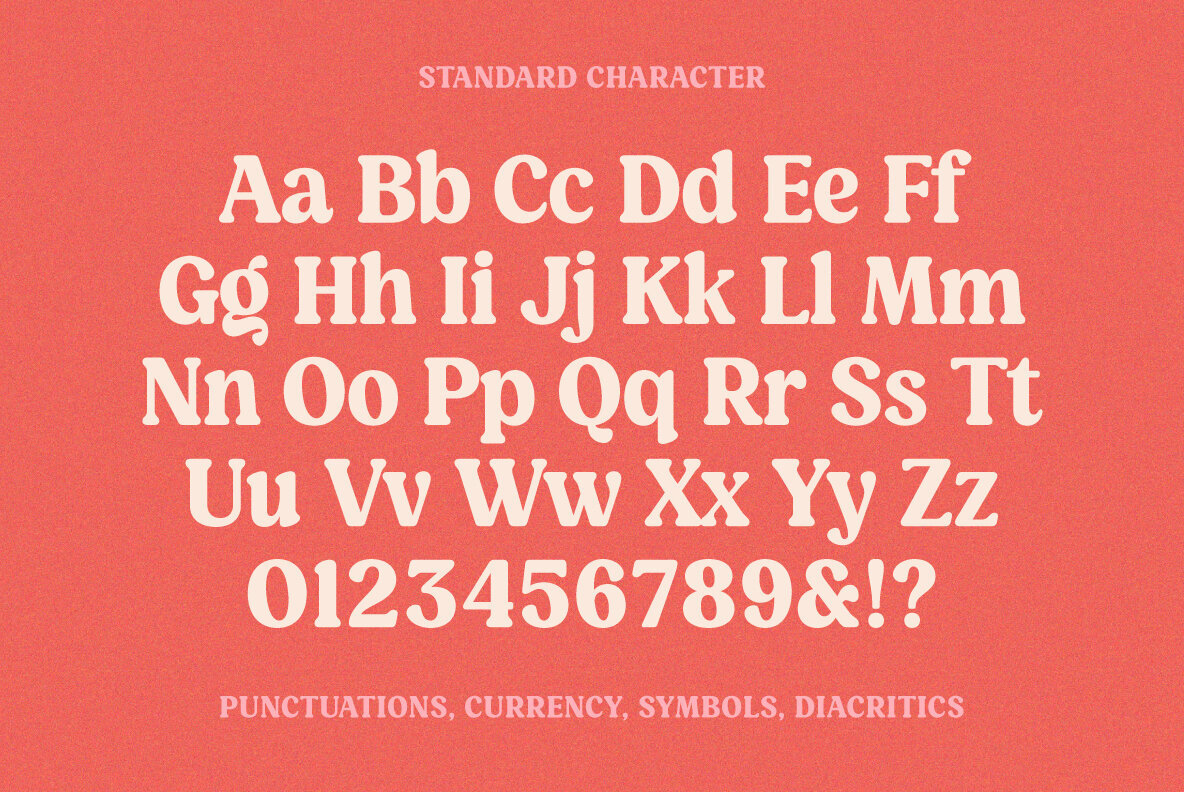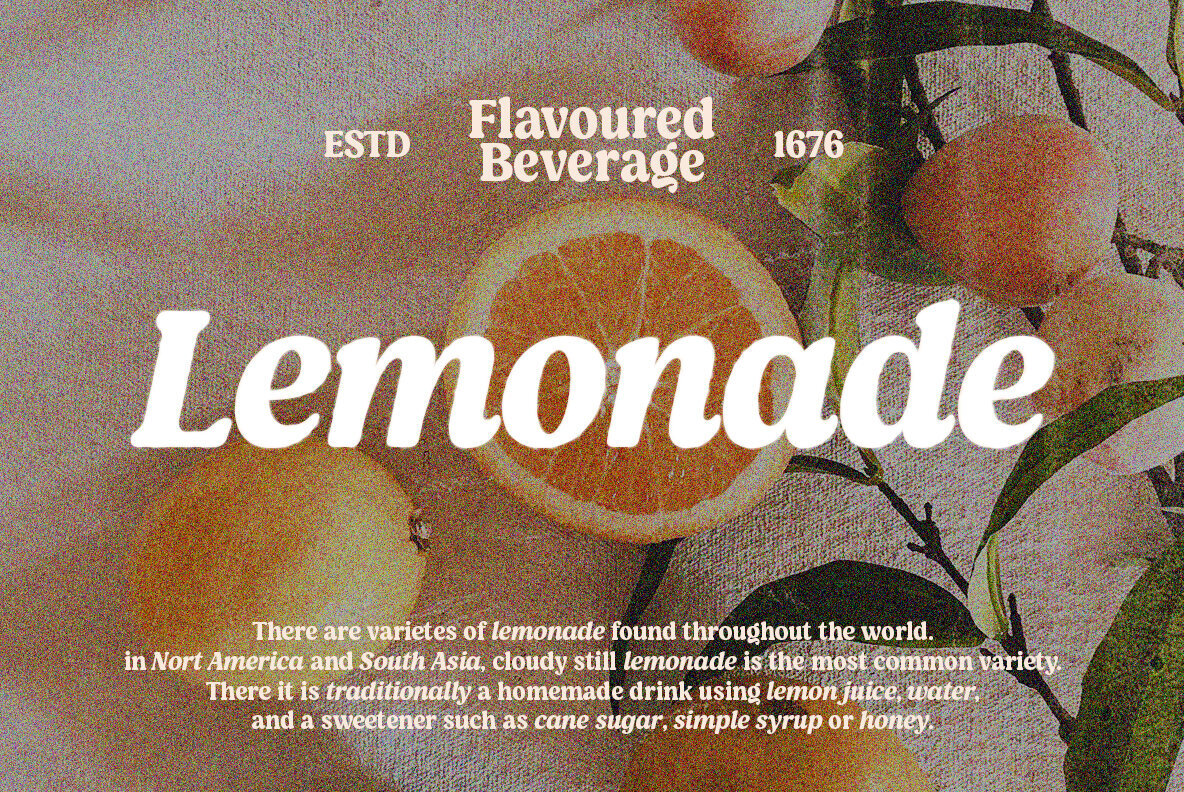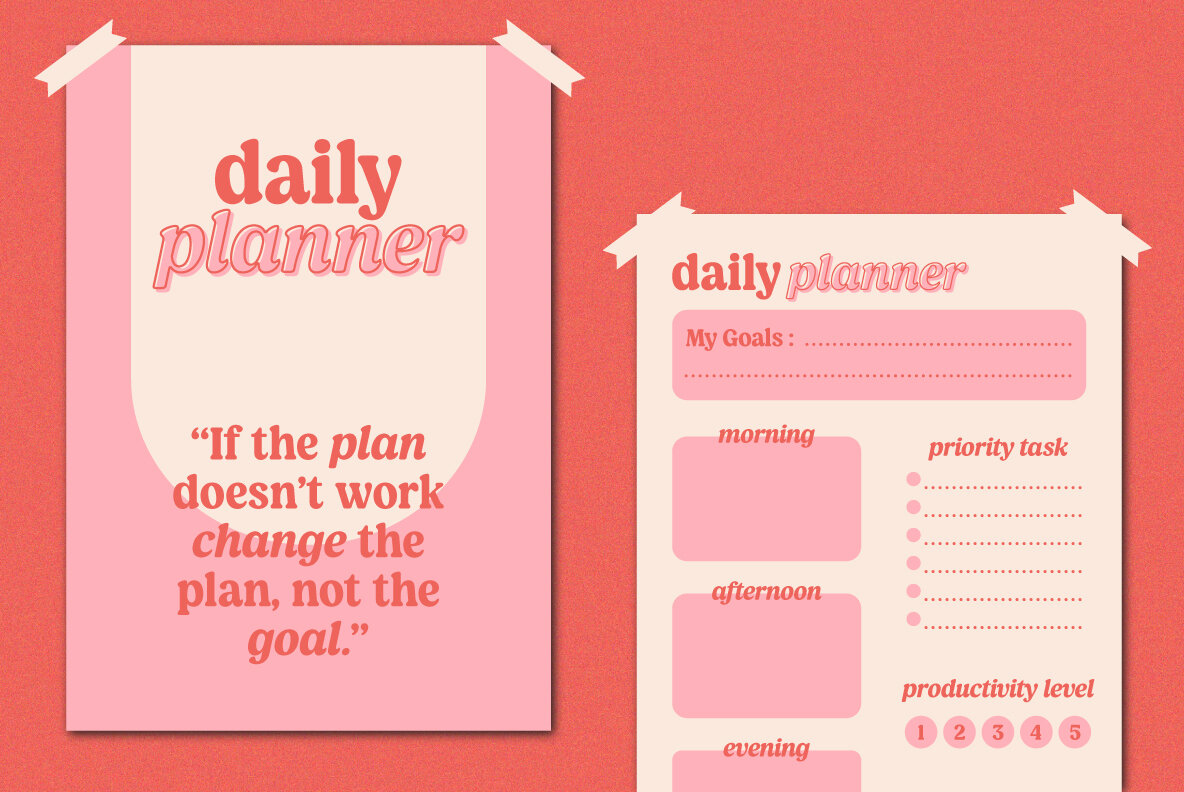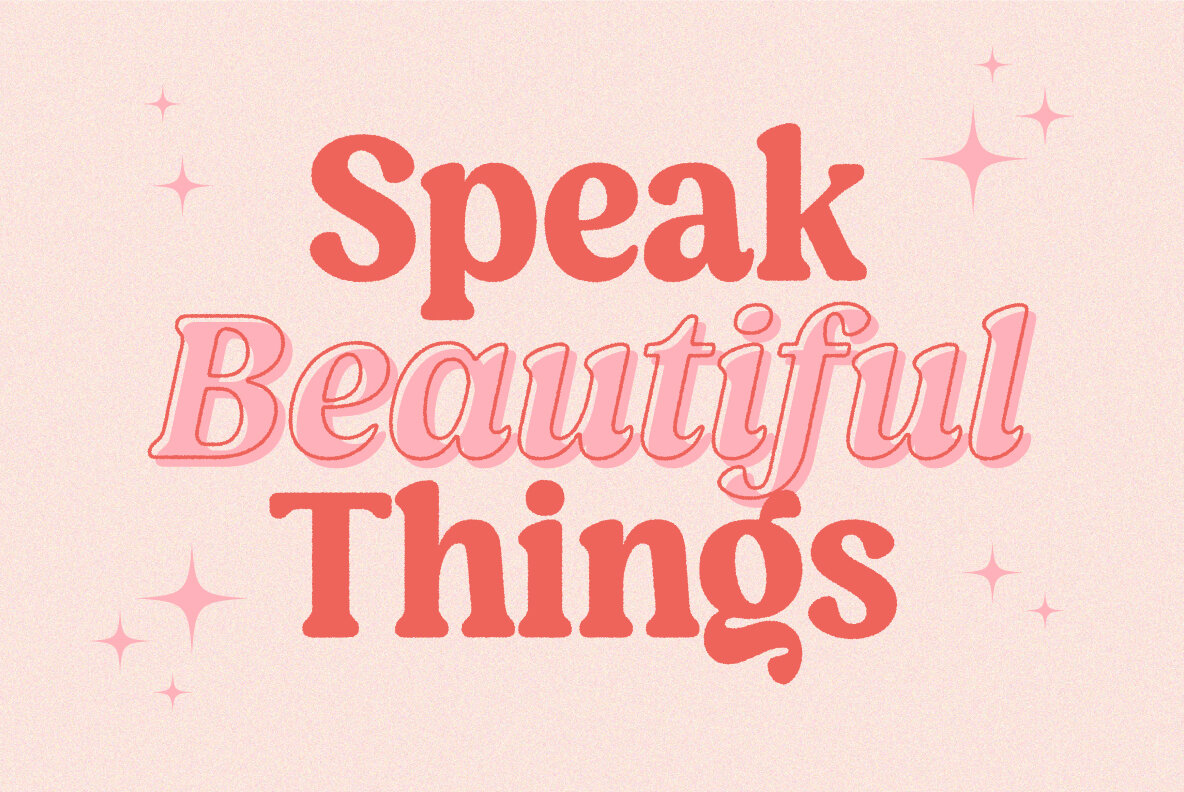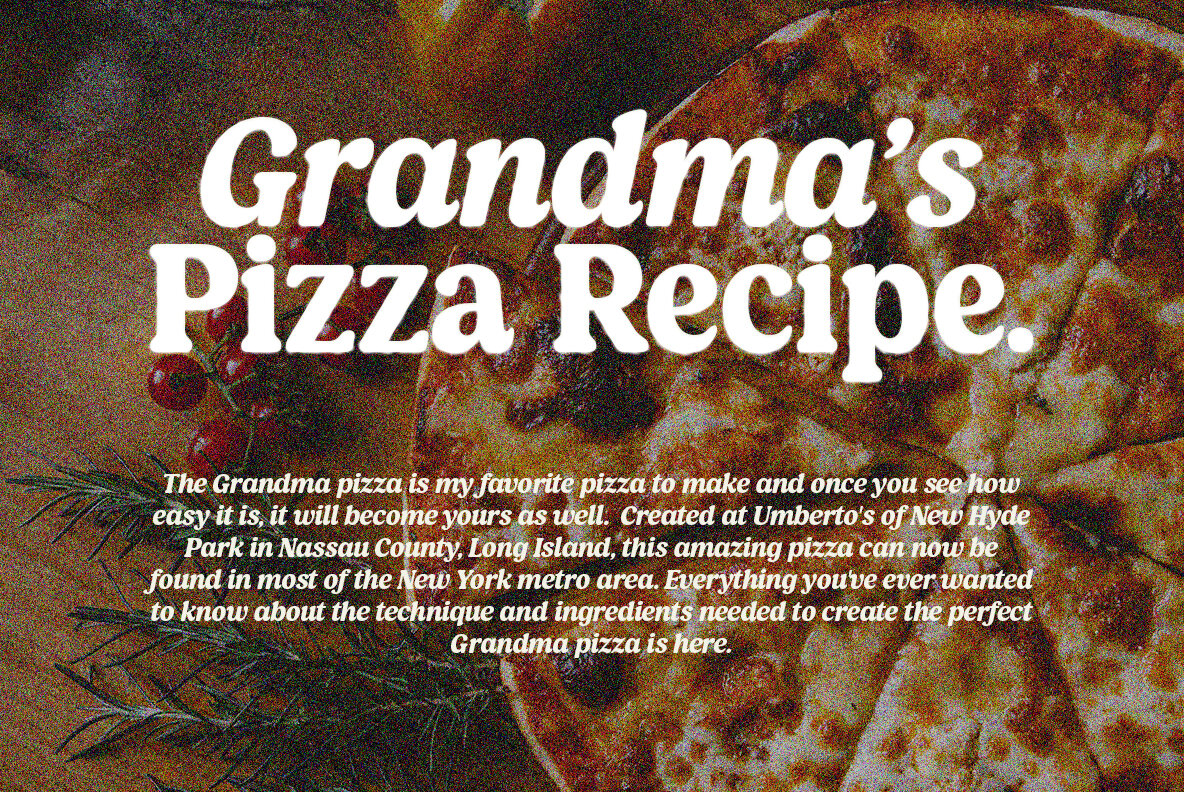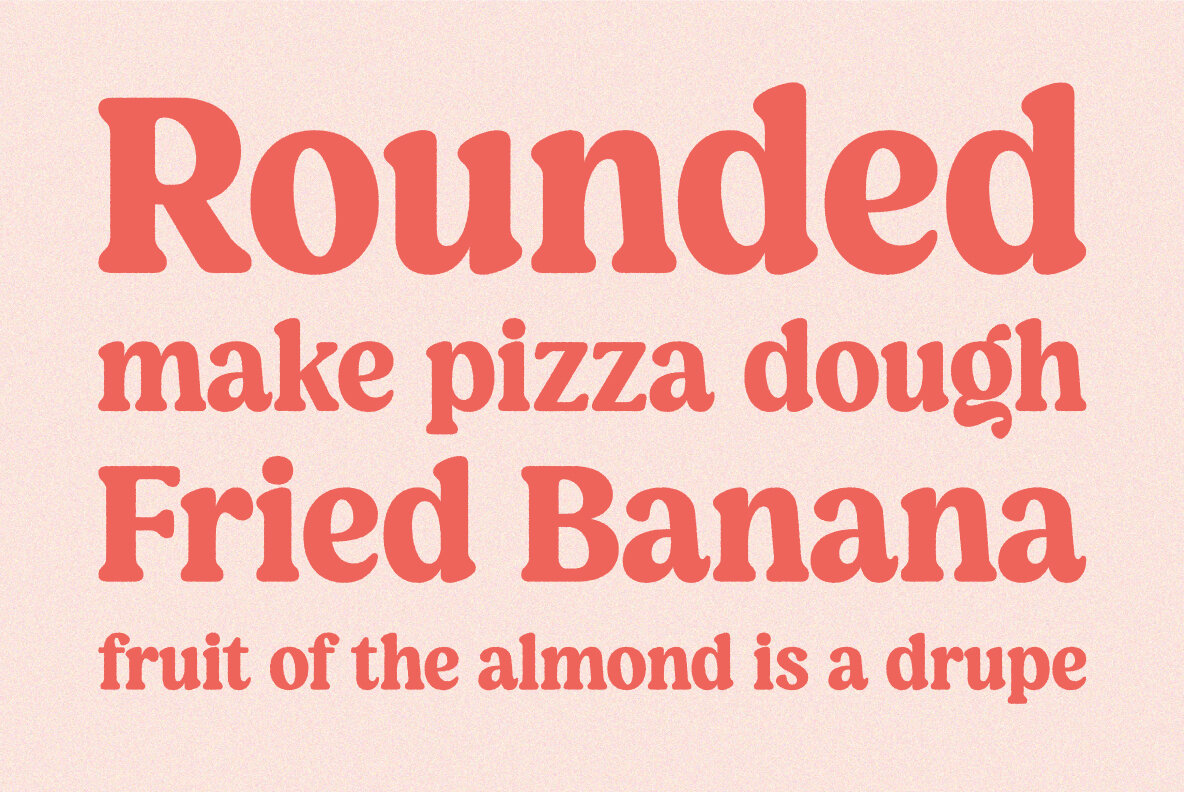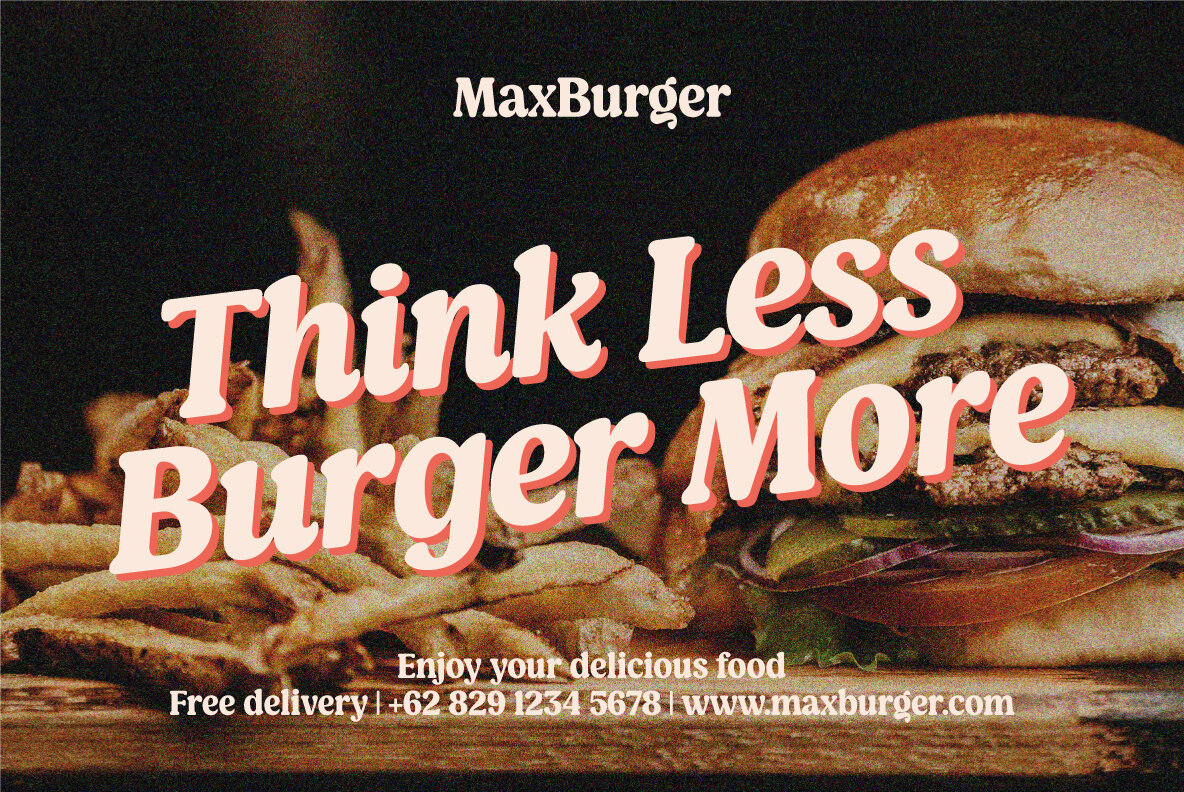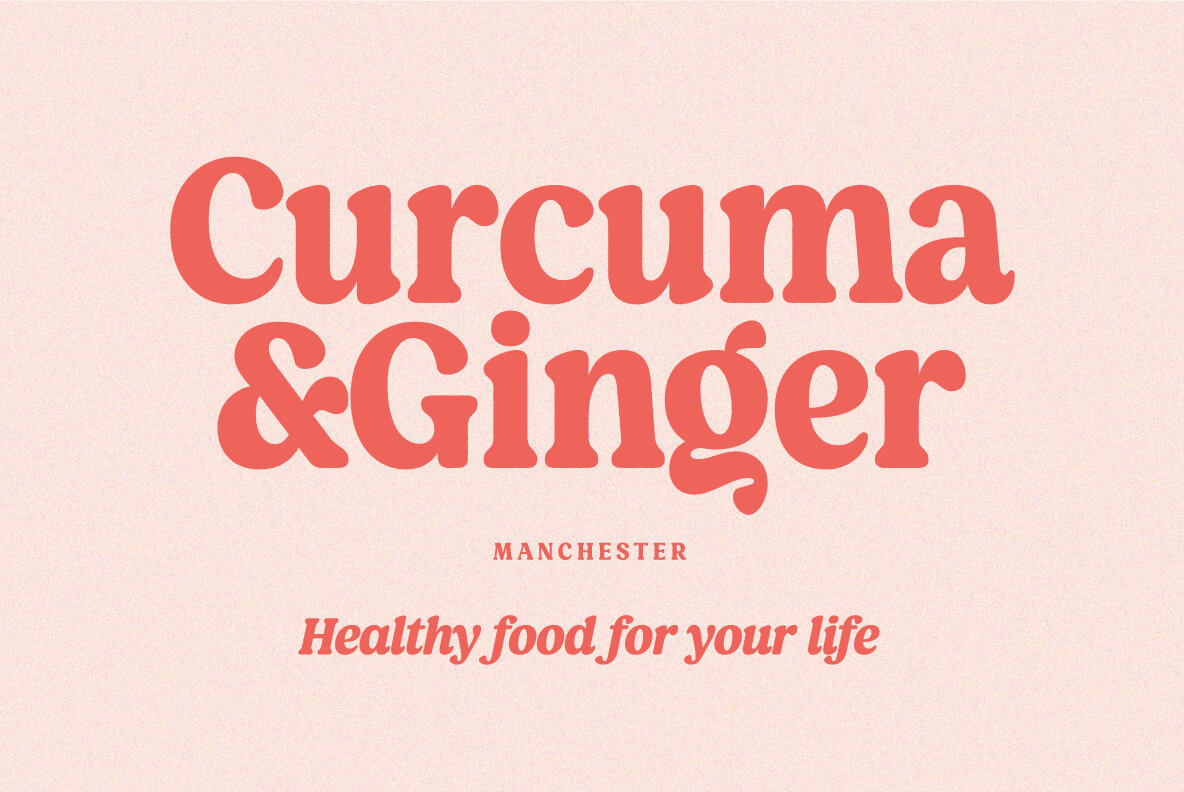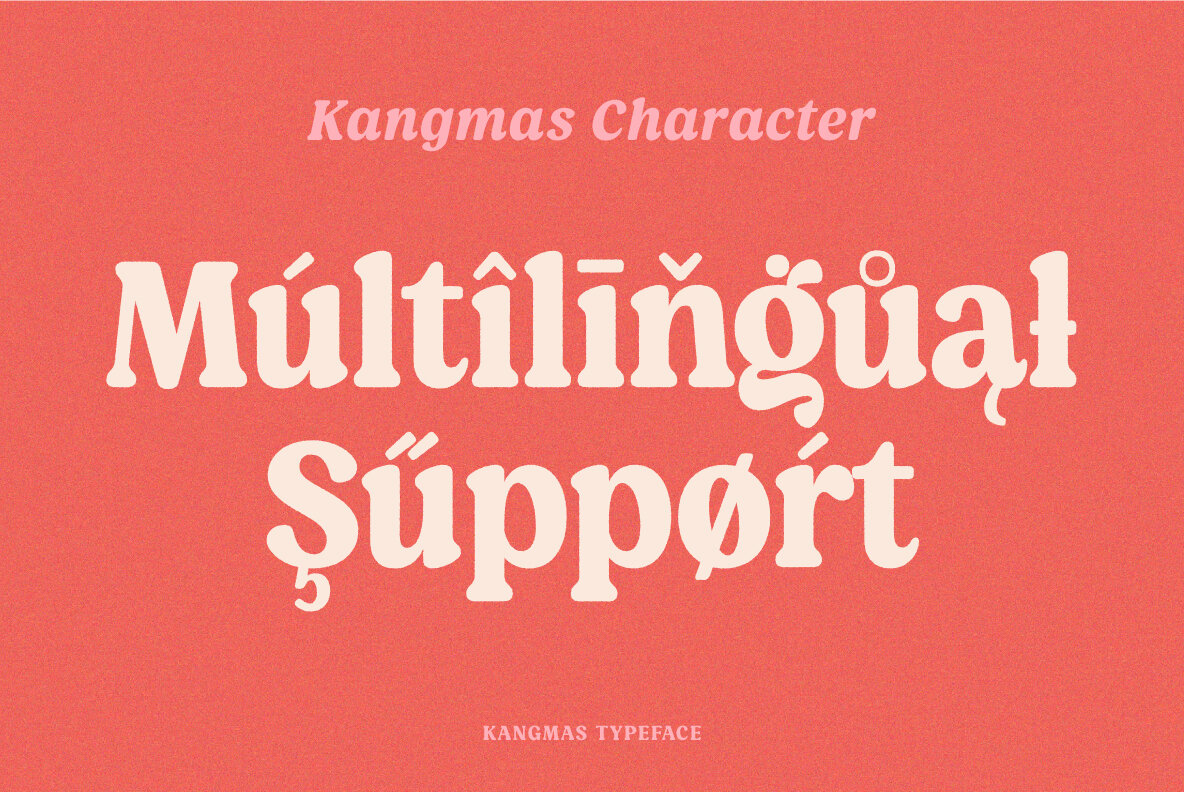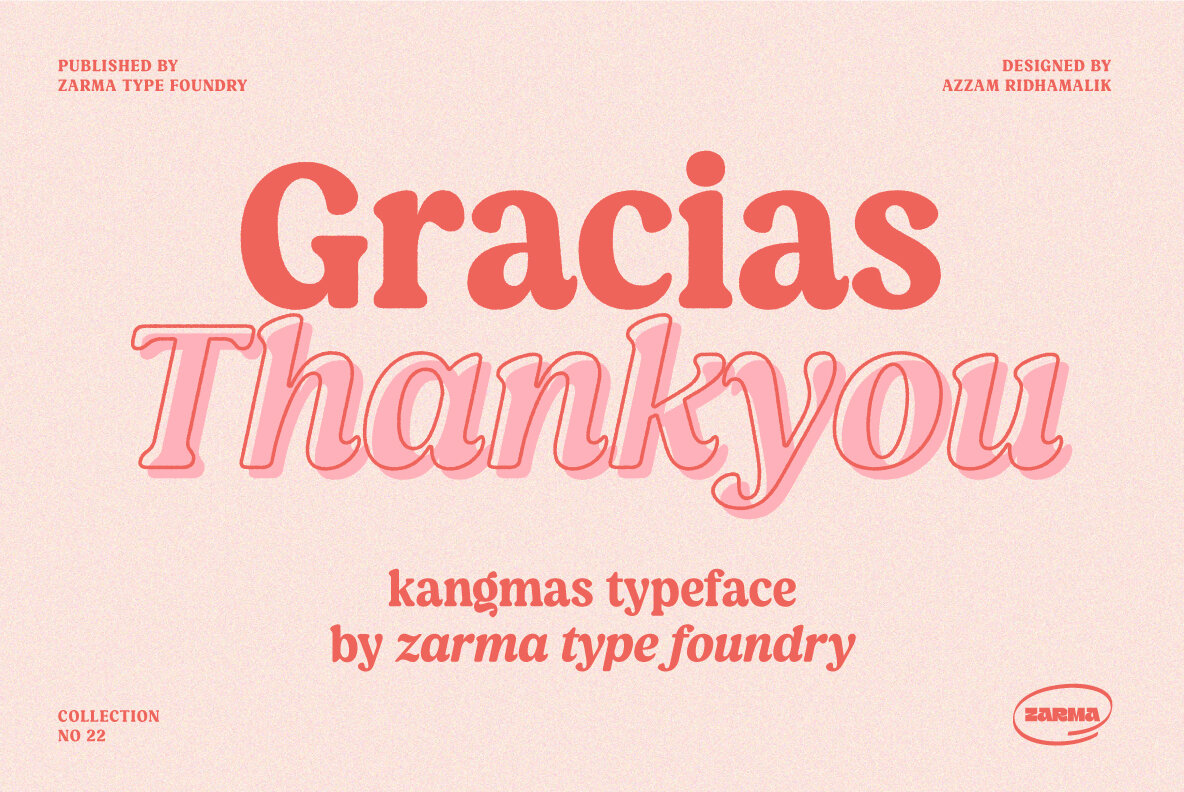
Kangmas Font
Kangmas offers designers a delightful blend of the past and present. This serif font captures the nostalgic essence of retro aesthetics, with its rounded serifs drawing inspiration from the timeless Cooper Black. Yet, it infuses modern letter shapes that harmoniously balance the old-school charm with contemporary styling.Kangmas: Nostalgic Retro Serif With Modern Flair
The combination of retro and modern touches in Kangmas allows it to fit seamlessly into various design projects, from branding to digital media.